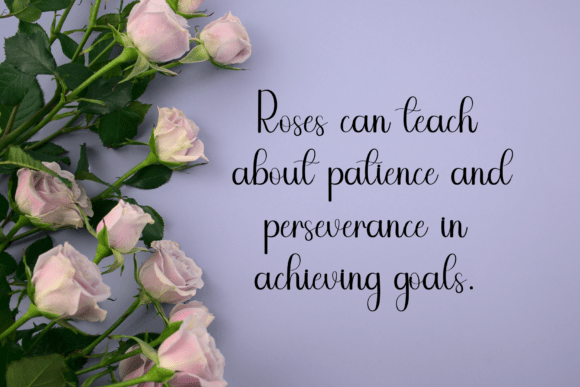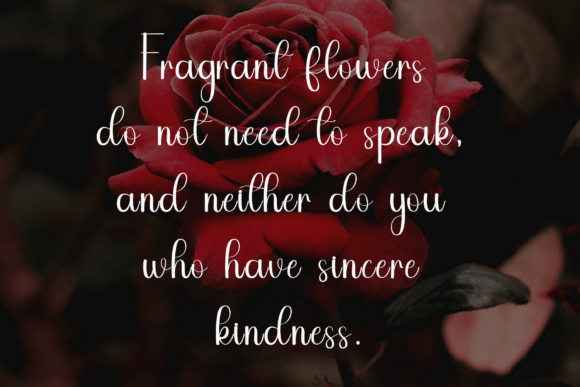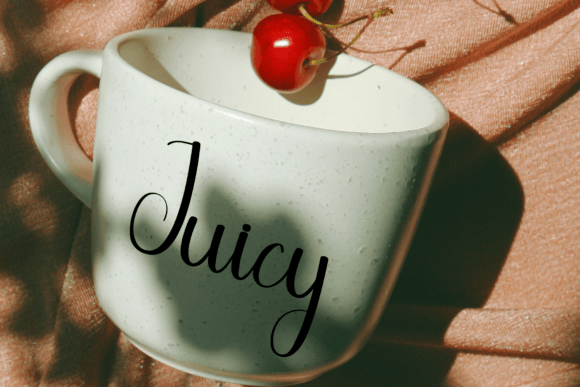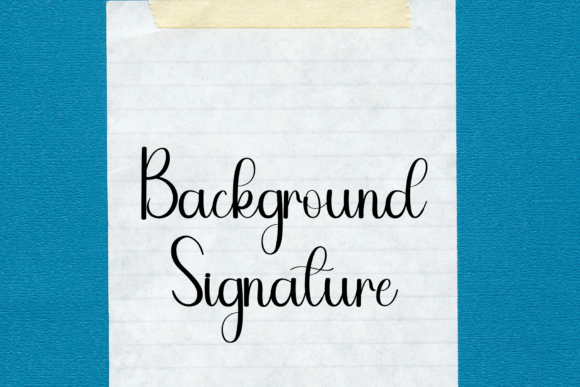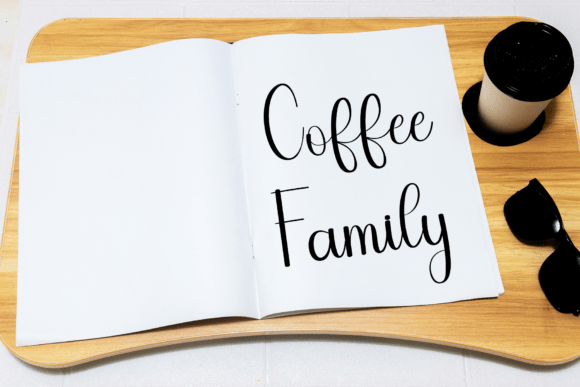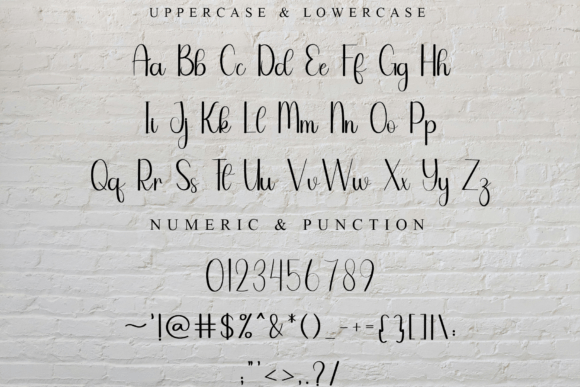
Introducing Cherry Font: The Festive and Merry Typeface for Holiday Designs
The holiday season is upon us, and what better way to get into the spirit than with a font that’s as festive and merry as Cherry Font? This delightful typeface is designed to capture the magic of the holiday season, with its decorative elements and whimsical flair that will add a touch of enchantment to your designs. Whether you’re a designer, crafter, or DIY enthusiast, Cherry Font is the perfect addition to your typography collection.
A Font that’s Perfect for Holiday Projects
Cherry Font is specifically designed for holiday-themed projects, making it the ideal choice for greeting cards, gift tags, and festive decorations. Its playful and cheerful design will bring a nostalgic ambiance to your words, evoking memories of Christmases past. With Cherry Font, you can add a personal touch to your holiday designs, making them truly special and unique.
One of the best features of Cherry Font is that it’s PUA (Private Use Area) encoded, which means you can access all of the amazing glyphs and ligatures with ease. This font is designed to make it easy for you to create beautiful and intricate designs, without the hassle of having to manually insert special characters. With Cherry Font, you can focus on the creative process, and let the font do the hard work for you.
What Makes Cherry Font So Special?
So, what sets Cherry Font apart from other fonts? Here are just a few features that make it truly special:
- Festive and Merry Design: Cherry Font is designed to capture the spirit of the holiday season, with a playful and cheerful design that’s sure to put a smile on your face.
- Decorative Elements: The font features decorative elements, such as swashes and flourishes, that add a touch of elegance and sophistication to your designs.
- Whimsical Flair: Cherry Font has a whimsical flair that’s perfect for creating festive and fun designs.
- PUA Encoded: As mentioned earlier, Cherry Font is PUA encoded, making it easy to access all of the amazing glyphs and ligatures.
How to Use Cherry Font in Your Designs
Using Cherry Font in your designs is easy. Here are a few tips to get you started:
- Pair it with Other Fonts: Cherry Font pairs well with other fonts, so feel free to experiment with different combinations to create a unique look.
- Use it for Headings and Titles: Cherry Font is perfect for headings and titles, where its decorative elements and whimsical flair can really shine.
- Add a Personal Touch: Use Cherry Font to add a personal touch to your designs, such as on gift tags, greeting cards, and other holiday-themed projects.
Why Designers and Crafters Love Cherry Font
Designers and crafters love Cherry Font for its unique and festive design. Here are just a few reasons why:
- Unique and Eye-Catching: Cherry Font is a unique and eye-catching font that’s sure to make your designs stand out.
- Easy to Use: The font is easy to use, even for those who are new to design.
- Versatile: Cherry Font is versatile, and can be used in a variety of design projects, from holiday decorations to digital graphics.